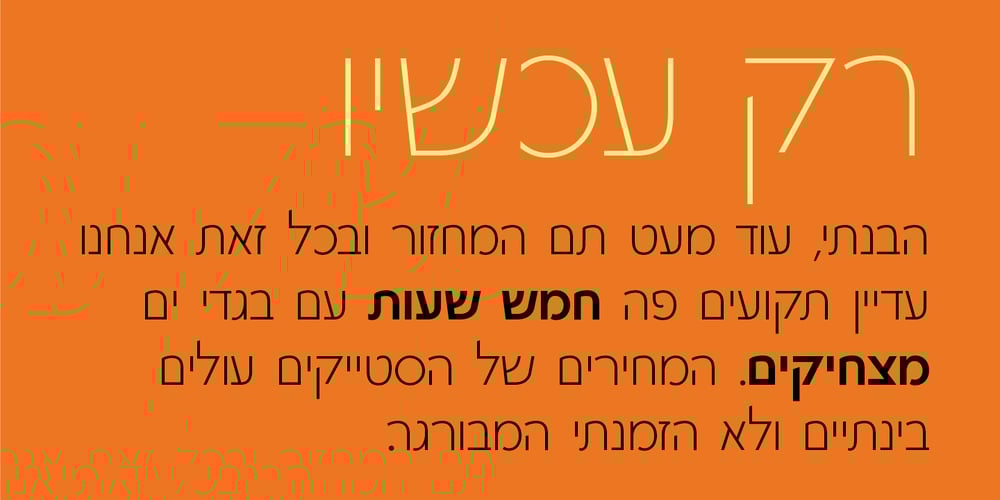
Rosenberg Ski Font Family was designed by Zvika Rosenberg and published by Masterfont. Rosenberg Ski contains 5 styles and family package options. This calligraphic scribble follows the traditional Hebrew type by intensive and free hand drawn lines. Added 2 weights to make it a rich 5 weights family.